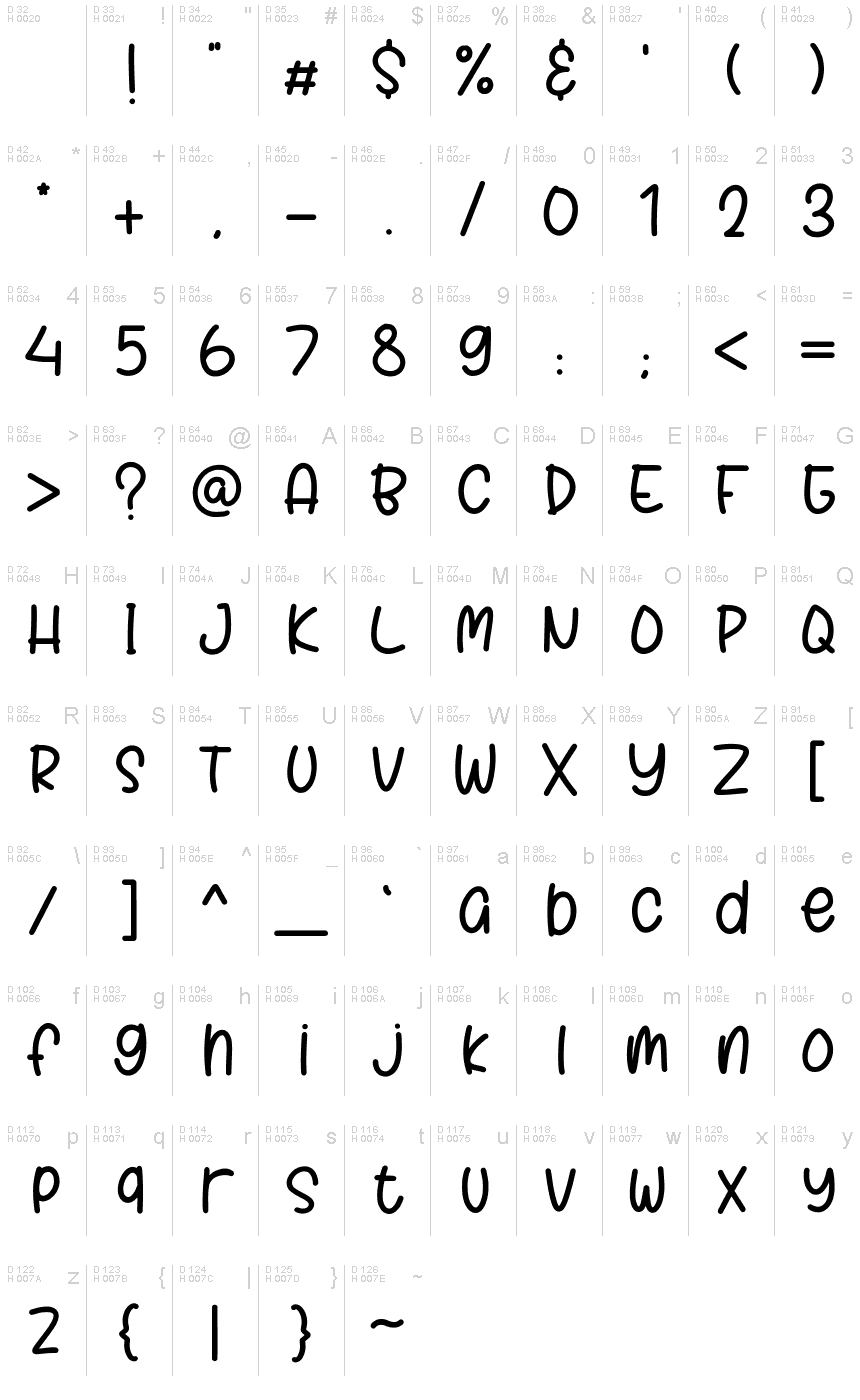
Jumkids Twilight
Introducing Jumkids Twilight by Qwrtype Foundry - a light, handwritten font perfect for creating projects that exude childhood innocence. From creative cards to cheerful posters, this font is ideal for crafting joyful designs.